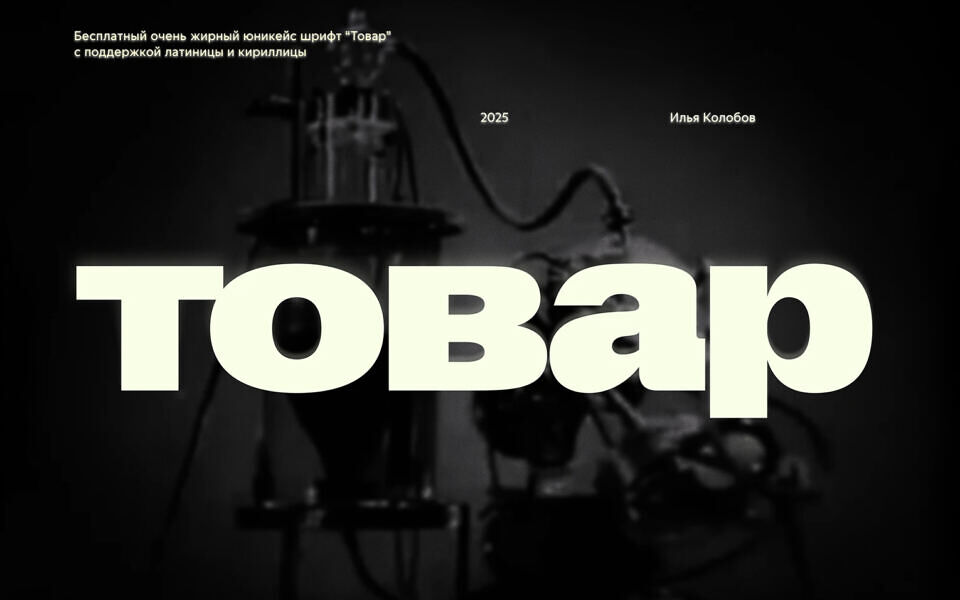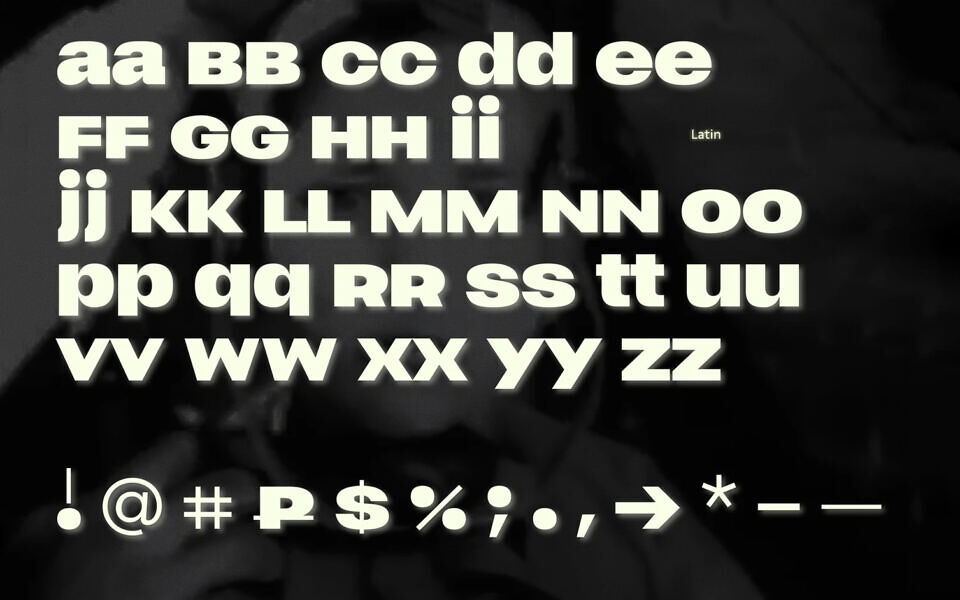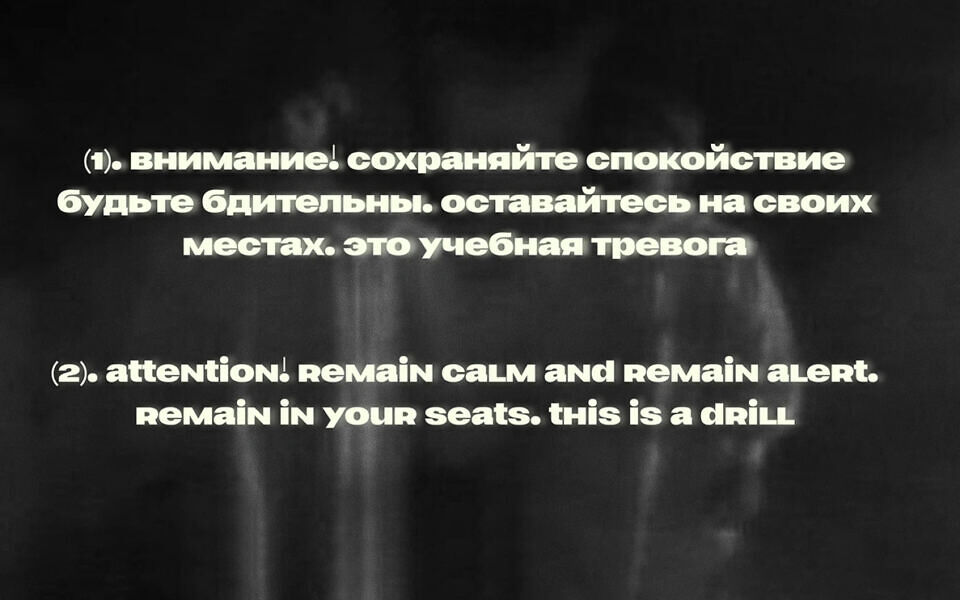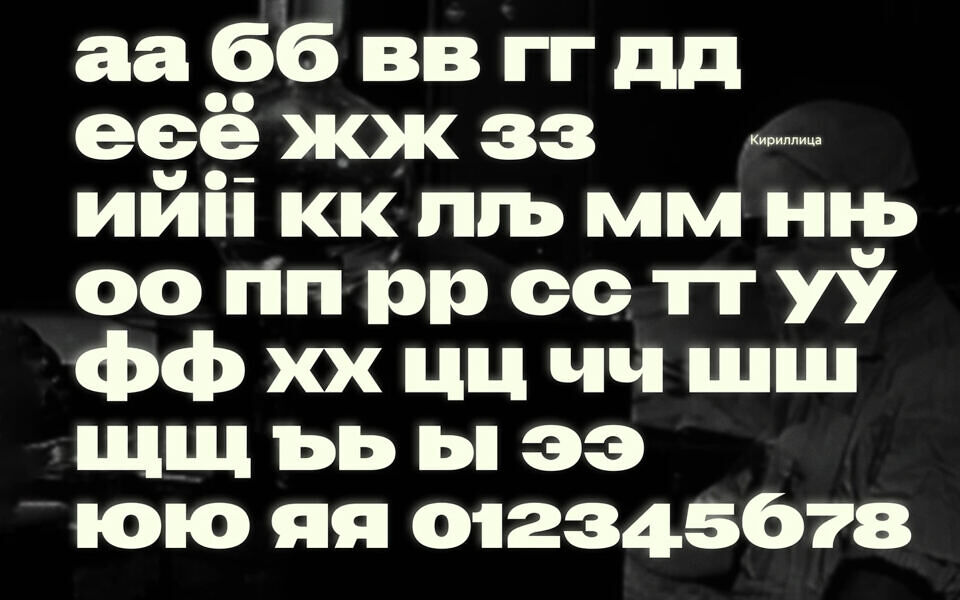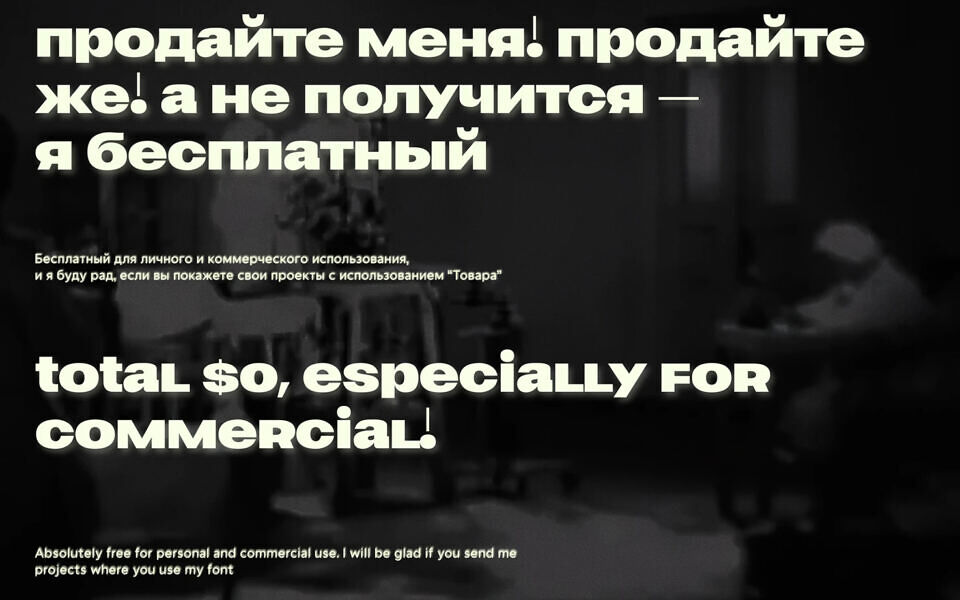
Tovar by Ilya Kolobov is a heavy, uncompromising sans-serif display typeface. Its massive, geometric letterforms capture industrial modernism and constructivist influences, perfect for impactful headlines, branding, and posters. Tovar supports both Latin and Cyrillic scripts.